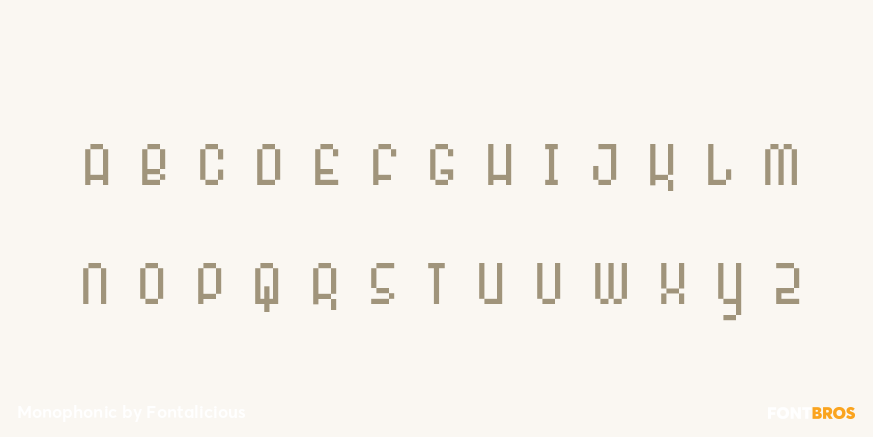
Monophonic
Font Family by Fontalicious
Monophonic is to the future of great design as Sarah Michelle Gellar is to making out with me. They are both probable great combos. Inside this font package, you will receive the regs version and the bolder one, recommended for serious fat type. Very soon, grasshopper, I will make more retro fonts. But for now, I am in a "future of techno" font phase. Just work with me, people. We'll get through this together.